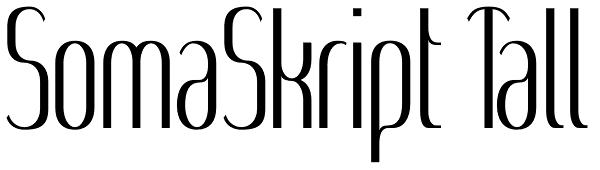
SomaSkript Tall
Somaskript Tall shares the same concept as Somatype Skwosh, namely a desire to ignore traditional rules and re-scale along one axis only. This time the starting point was Somaskript and the end result is a condensed & uniquely elegant display face...